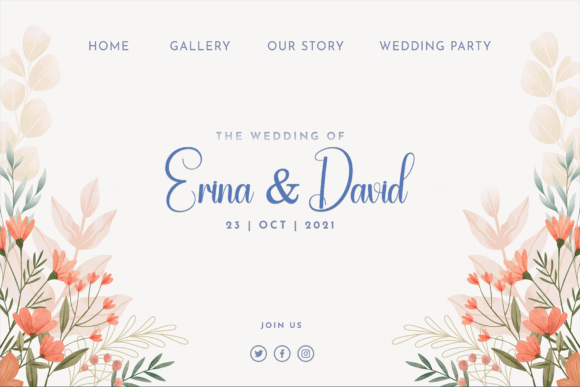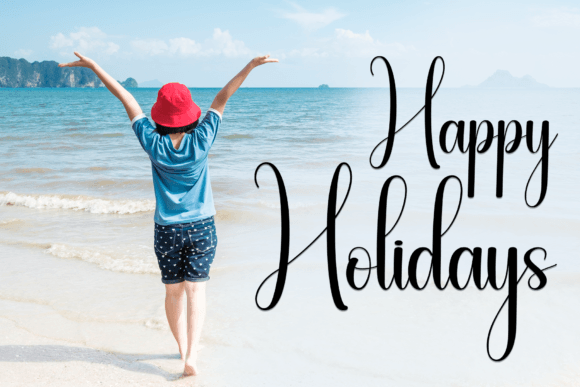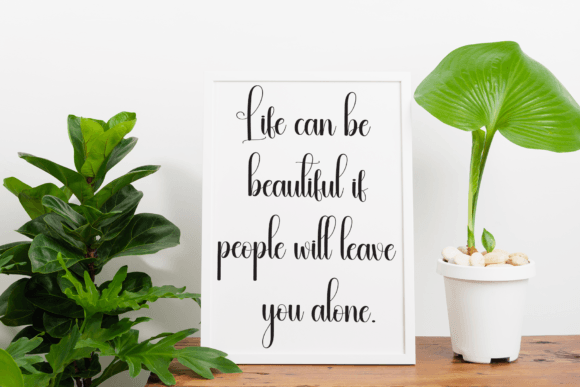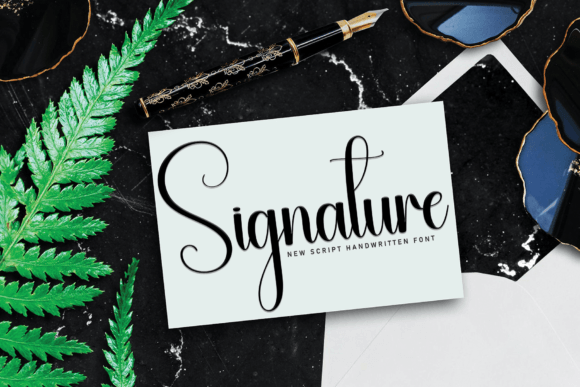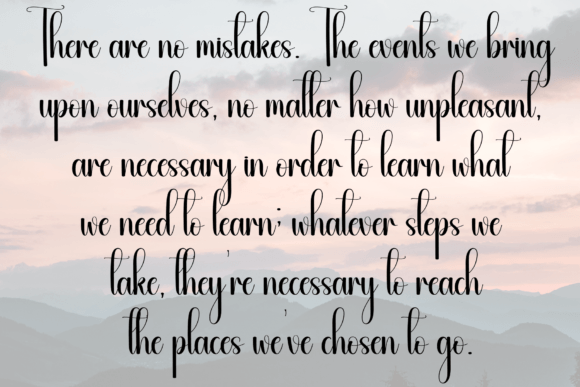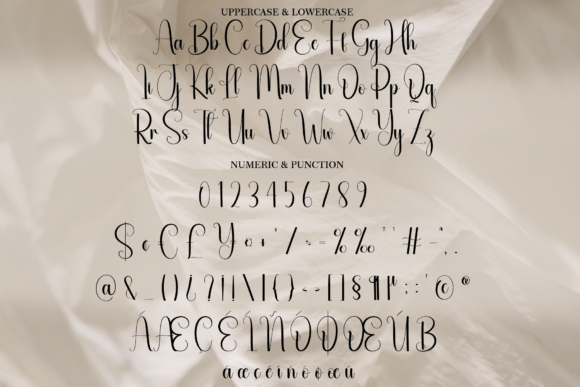
Introducing Blanket Font: The Sweet and Friendly Handwritten Font for Your Design Needs
Are you looking for a font that can add a touch of warmth and personality to your designs? Look no further than Blanket Font, a sweet and friendly handwritten font that’s perfect for a variety of creative projects. In this article, we’ll take a closer look at Blanket Font, its features, and how you can use it to elevate your designs.
What is Blanket Font?
Blanket Font is a beautiful, handwritten font that’s designed to bring a sense of fun and playfulness to your designs. This font is characterized by its soft, rounded edges and gentle curves, making it perfect for creating a warm and inviting atmosphere in your designs. Whether you’re working on a wedding invitation, a greeting card, or any other project that requires a personal touch, Blanket Font is an excellent choice.
Key Features of Blanket Font
So, what makes Blanket Font so special? Here are some of its key features:
- Sweet and Friendly Design: Blanket Font has a sweet and friendly design that’s perfect for creating a warm and inviting atmosphere in your designs.
- Handwritten Style: This font has a beautiful, handwritten style that’s perfect for adding a personal touch to your designs.
- Cute and Fun: Blanket Font is a cute and fun font that’s perfect for designs that require a playful touch.
- Versatile: This font is versatile and can be used for a variety of design projects, including wedding invitations, greeting cards, and more.
Use Cases for Blanket Font
Blanket Font is a versatile font that can be used for a variety of design projects. Here are some use cases where this font shines:
- Wedding Invitations: Blanket Font is perfect for creating beautiful and personalized wedding invitations that set the tone for a special day.
- Greeting Cards: This font is great for creating greeting cards for special occasions, such as birthdays, anniversaries, and holidays.
- Social Media Graphics: Blanket Font can be used to create engaging social media graphics that add a personal touch to your online presence.
- Branding and Packaging: This font can be used for branding and packaging design, adding a touch of warmth and personality to your brand.
Tips for Using Blanket Font
Here are some tips for using Blanket Font effectively in your designs:
- Pair with Other Fonts: Blanket Font can be paired with other fonts to create a unique and interesting design. Try pairing it with a sans-serif font for a modern look.
- Use for Headlines and Body Text: This font can be used for both headlines and body text, making it a great choice for designs that require a lot of text.
- Experiment with Colors: Blanket Font looks great in a variety of colors. Experiment with different colors to find the one that works best for your design.
Blanket Font is a sweet and friendly handwritten font that’s perfect for designers and crafters who want to add a touch of warmth and personality to their designs. With its soft, rounded edges and gentle curves, this font is ideal for creating a warm and inviting atmosphere in your designs. Whether you’re working on a wedding invitation, a greeting card, or any other project that requires a personal touch, Blanket Font is an excellent choice.